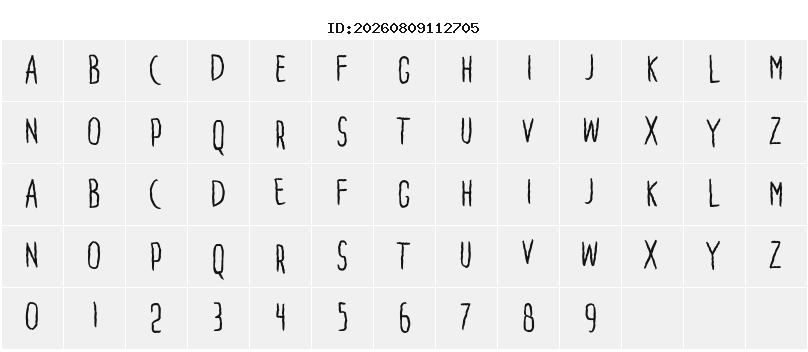
About Penakut.ttf
Penakut.ttf is a modern, elegant sans-serif font designed for ultimate readability and visual harmony. Perfect for branding, headlines, web design, and print materials.